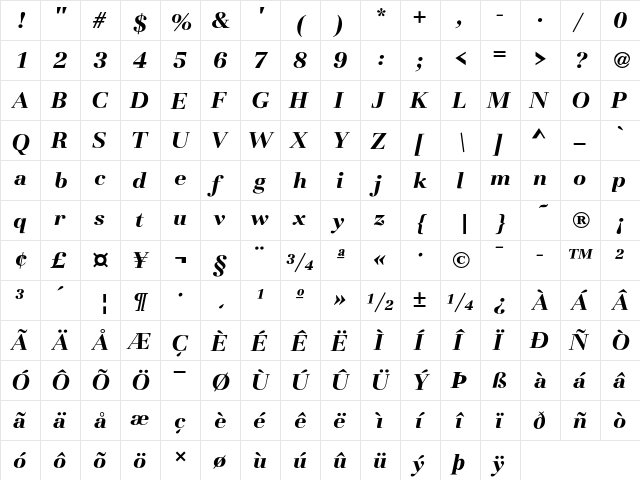
Basilia T Bold Italic Font Preview
Design Context for Basilia T Typeface
Basilia T takes a measured approach to typography — its balanced proportions and neutral character make it a reliable workhorse for both digital and print work. Its italic angle brings a sense of urgency and motion to the letterforms. Its bold stroke weight gives it real presence on the page.
Pro Tip: Try Basilia T for annotation and caption copy alongside an upright companion — the contrast in angle creates a dynamic but ordered typographic system.